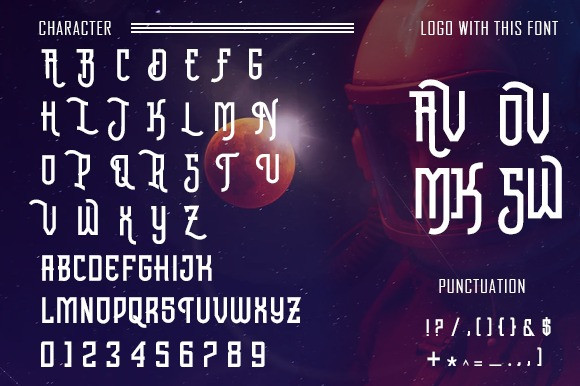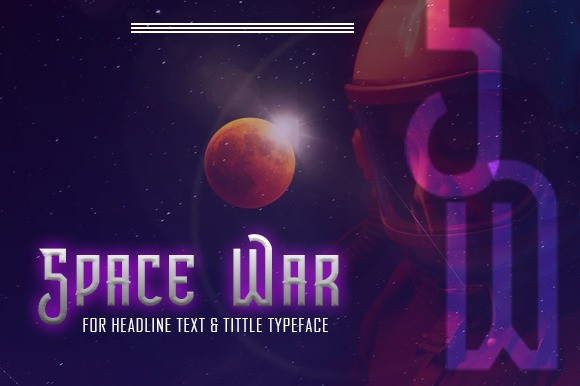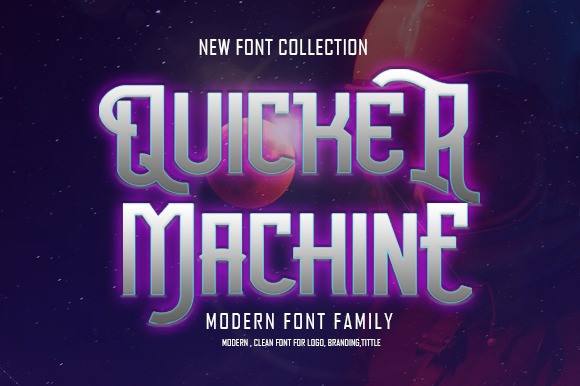
Quicker Machine Font
Quicker Machine Font is a cool display font. This font is imposing and features uniquely shaped letters, and as a result, it will easily match a wide range of creations that require a distinct touch.